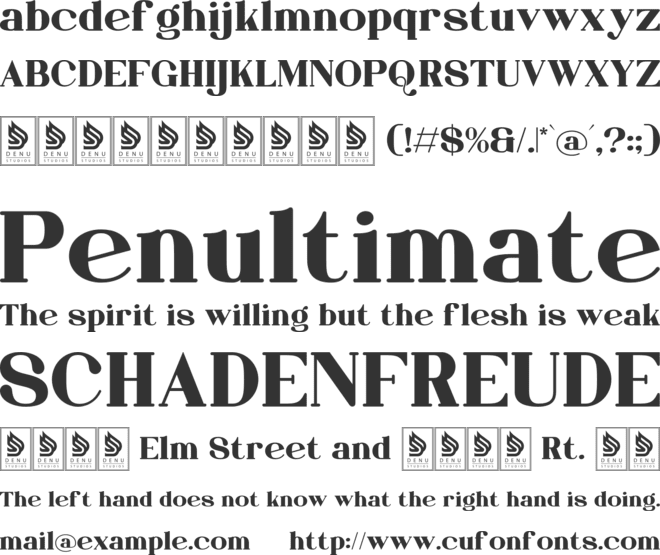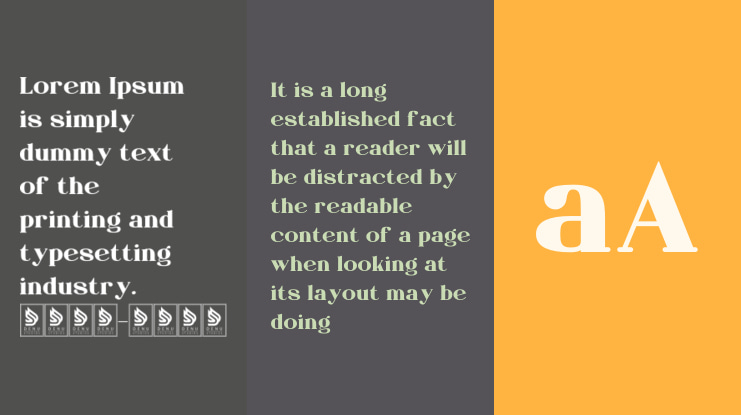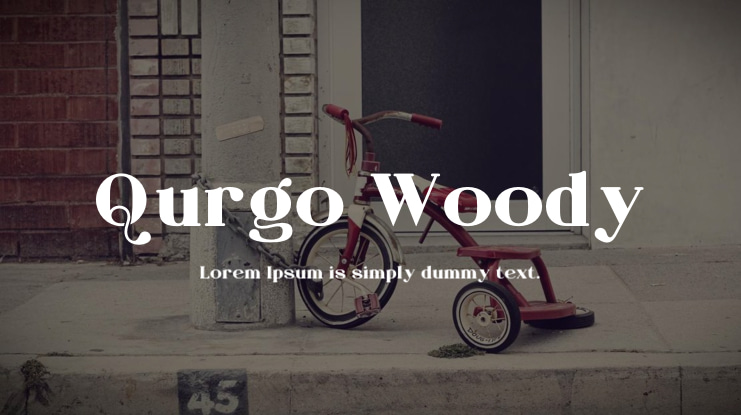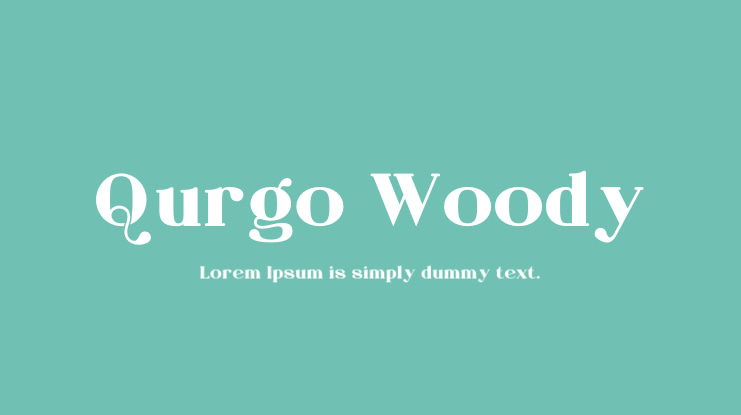
### Qurgo Woody | Stylish Retro Serif
Qurgo Woody is a stylish retro serif font suitable for a variety of projects, including:
- Logos - Branding projects - Homeware designs - Product packaging - Mugs - Quotes - Posters - Shopping bags - T-shirts - Book covers - Name cards - Invitation cards - Greeting cards - Labels - Photography - Watermarks - Special events
All your other lovely projects that need a stylish retro serif taste can benefit from this font.